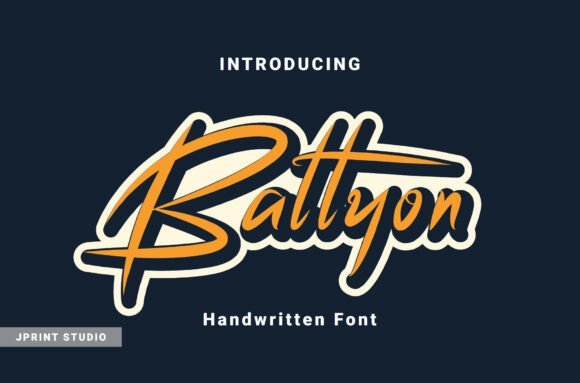
Introduction to Battyon Font
Experience the allure of individuality with Battyon, a uniquely handwritten font that radiates inherent sophistication and grace.
This extraordinary typeface raises the bar on logo development, enhancing social media content, and reinventing enthralling movie and book titles to new heights The Battyon font magnifies every design, transforming it into a remarkable masterpiece.
Key Features of Battyon Font
Why Choose Battyon Font?